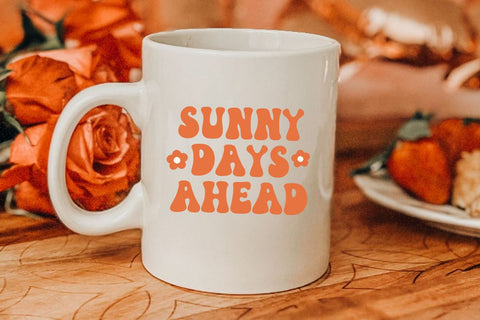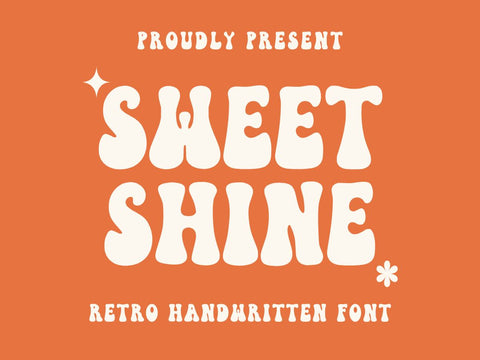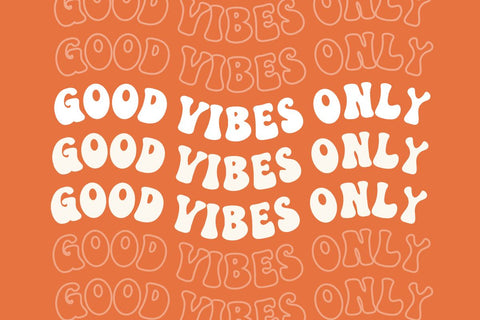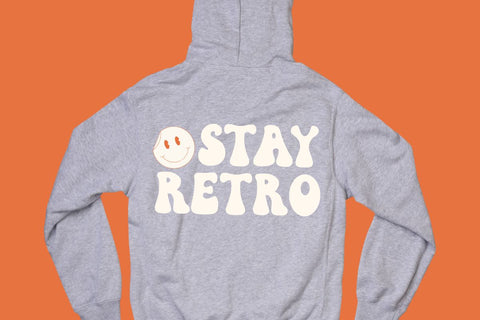
Sweet Shine - Retro Font
Sweet Shine is a retro groovy handwritten font. This font is perfect for cricut projects, canva, lasers, shirts, stickers, quotes, logos, teachers and more! Thank you!